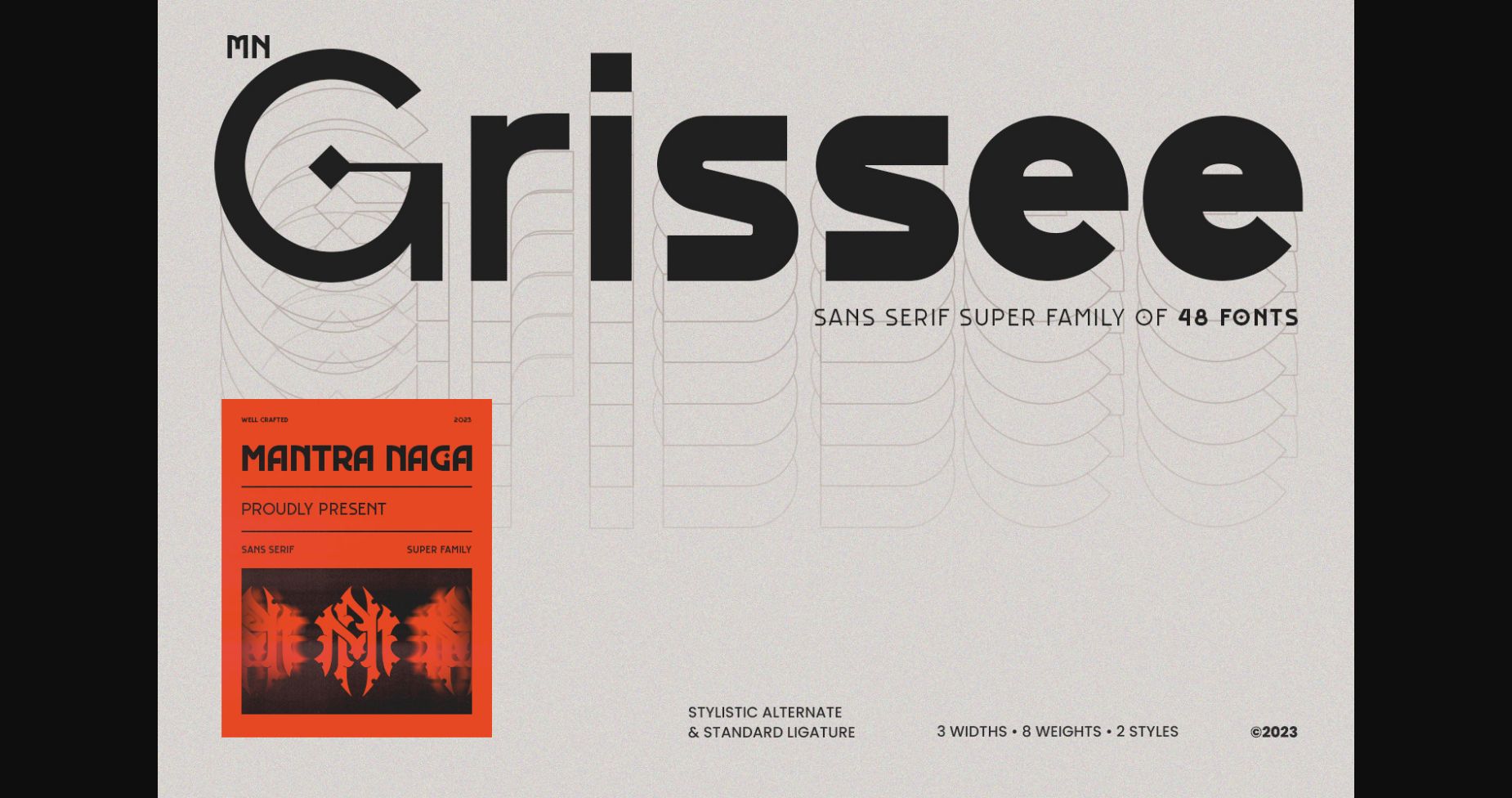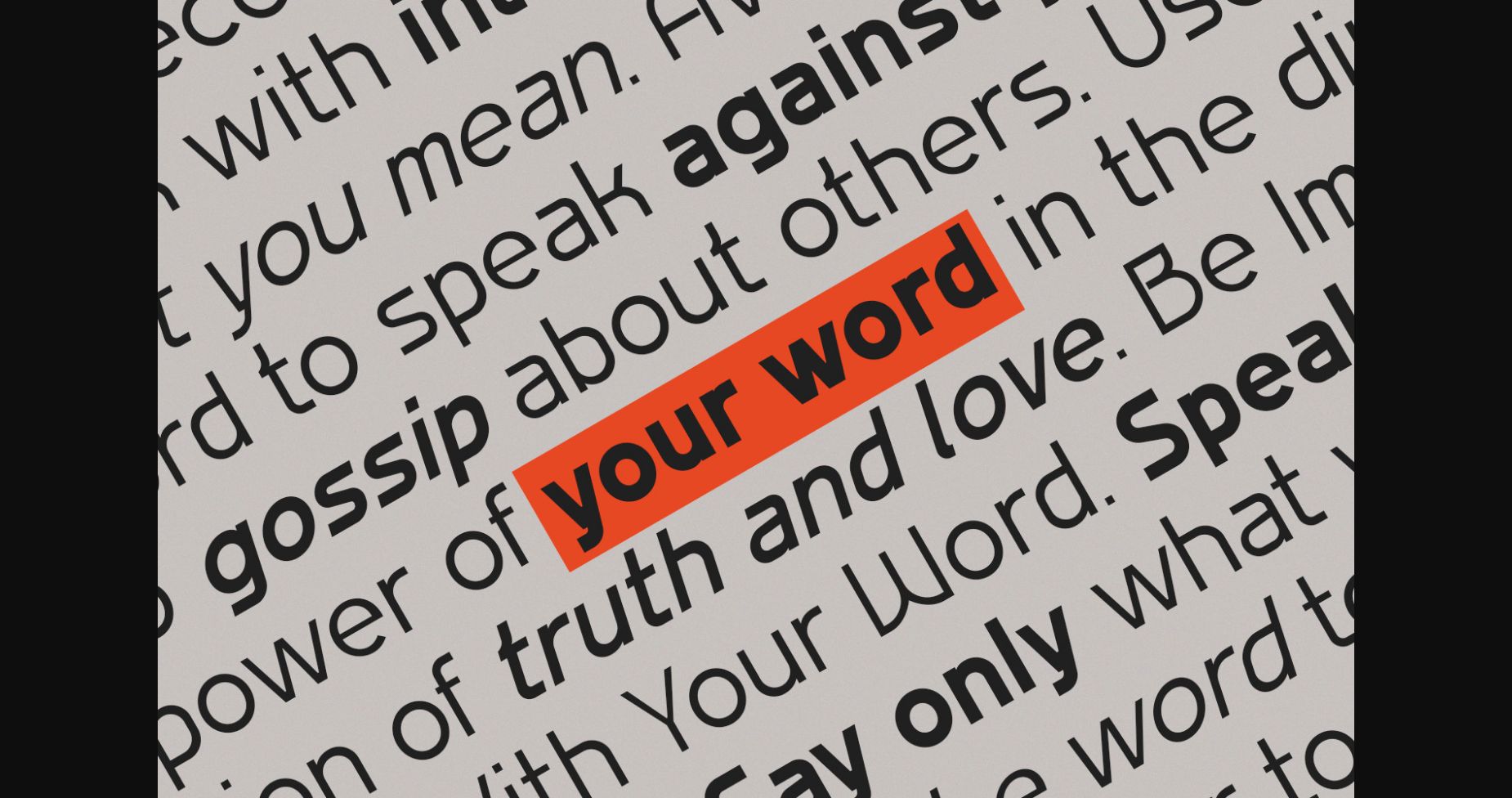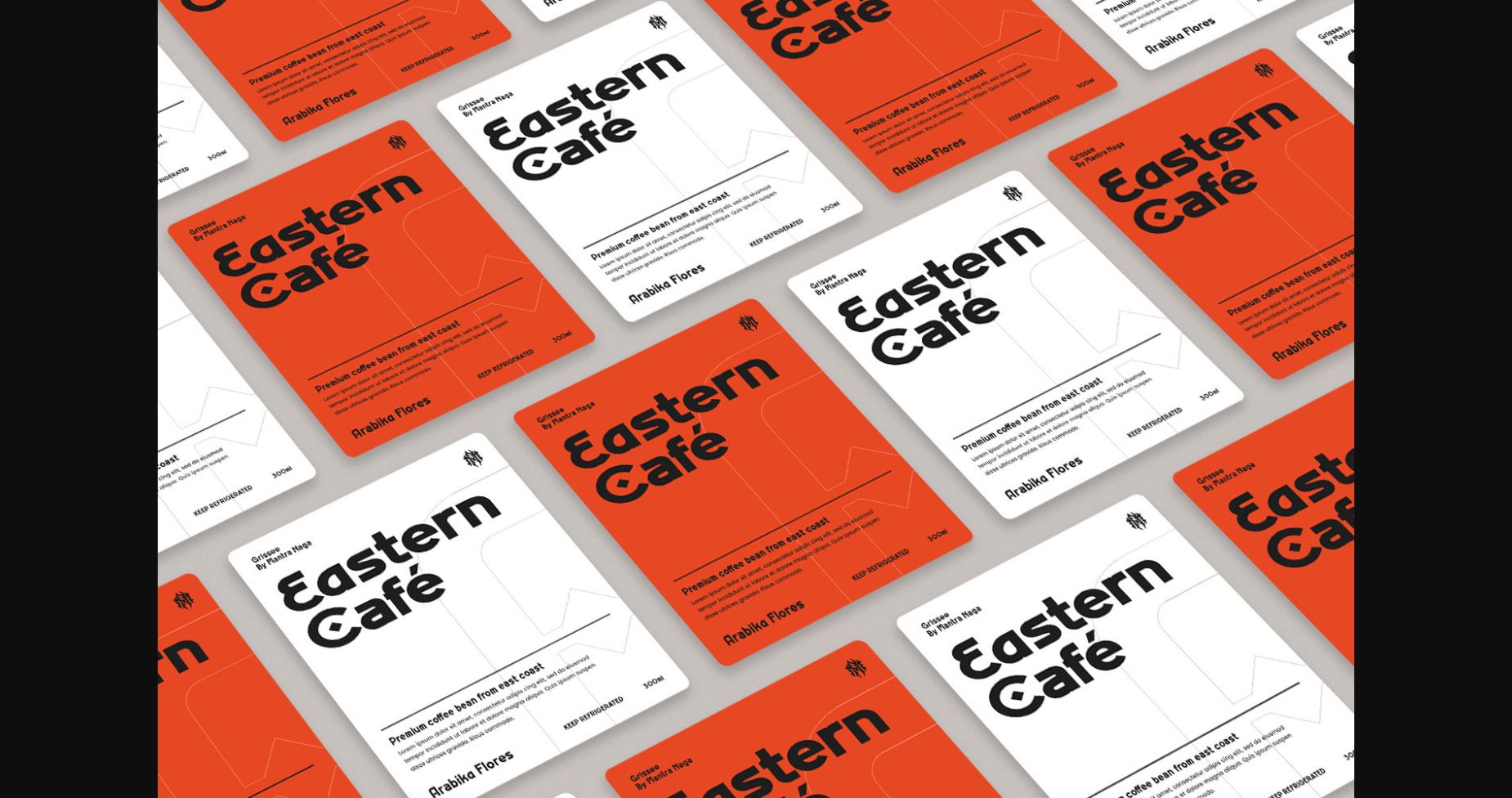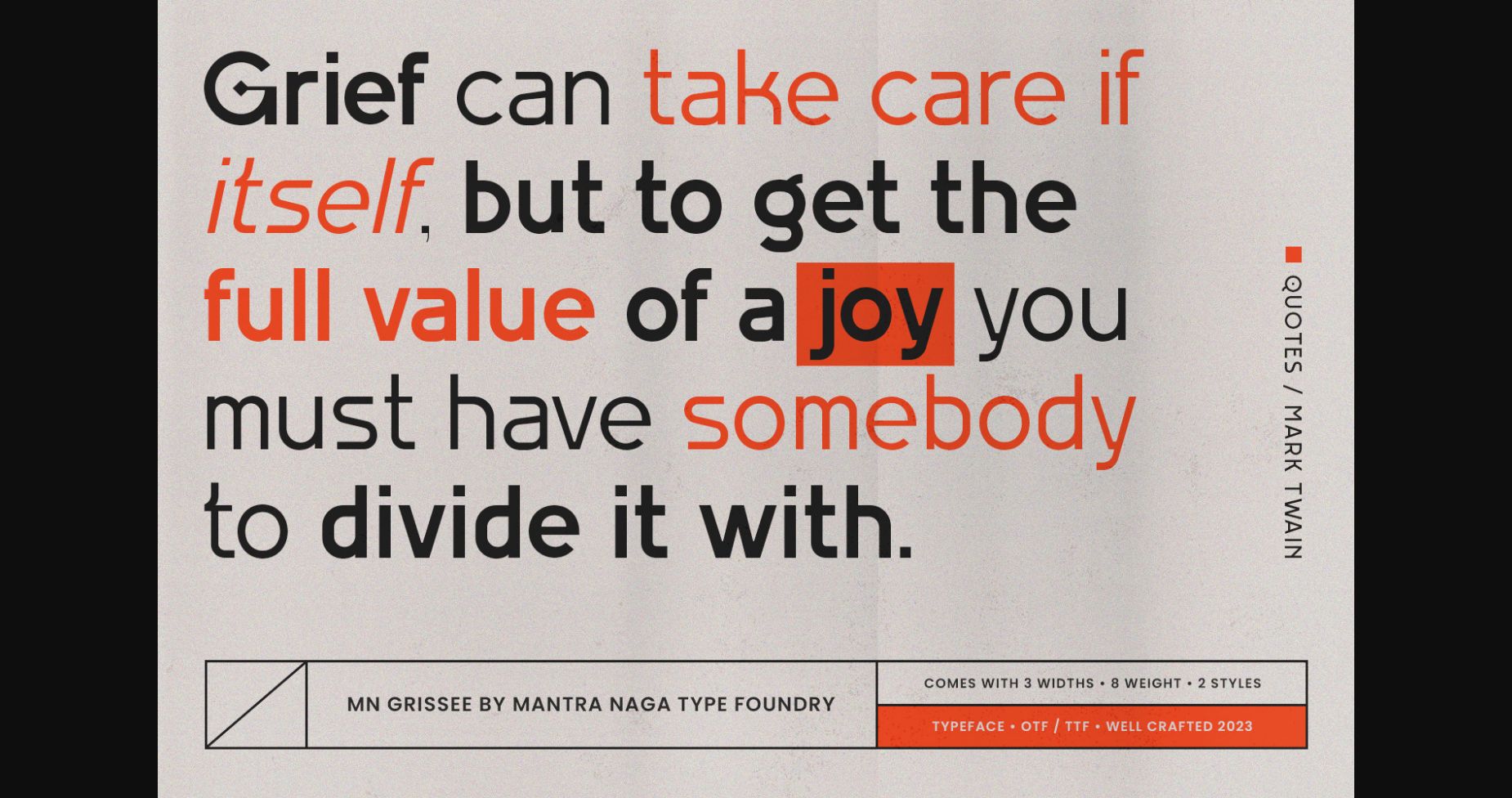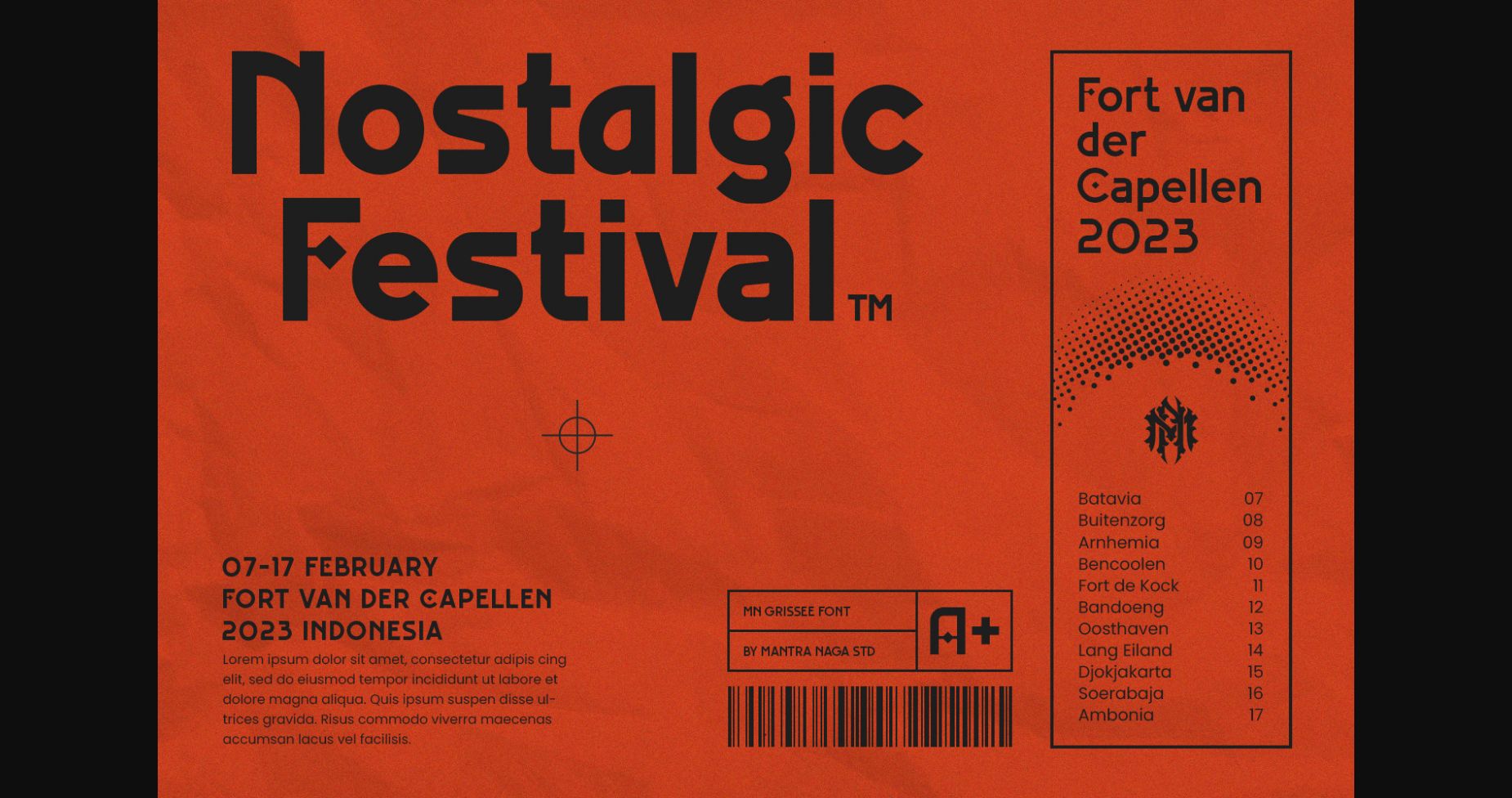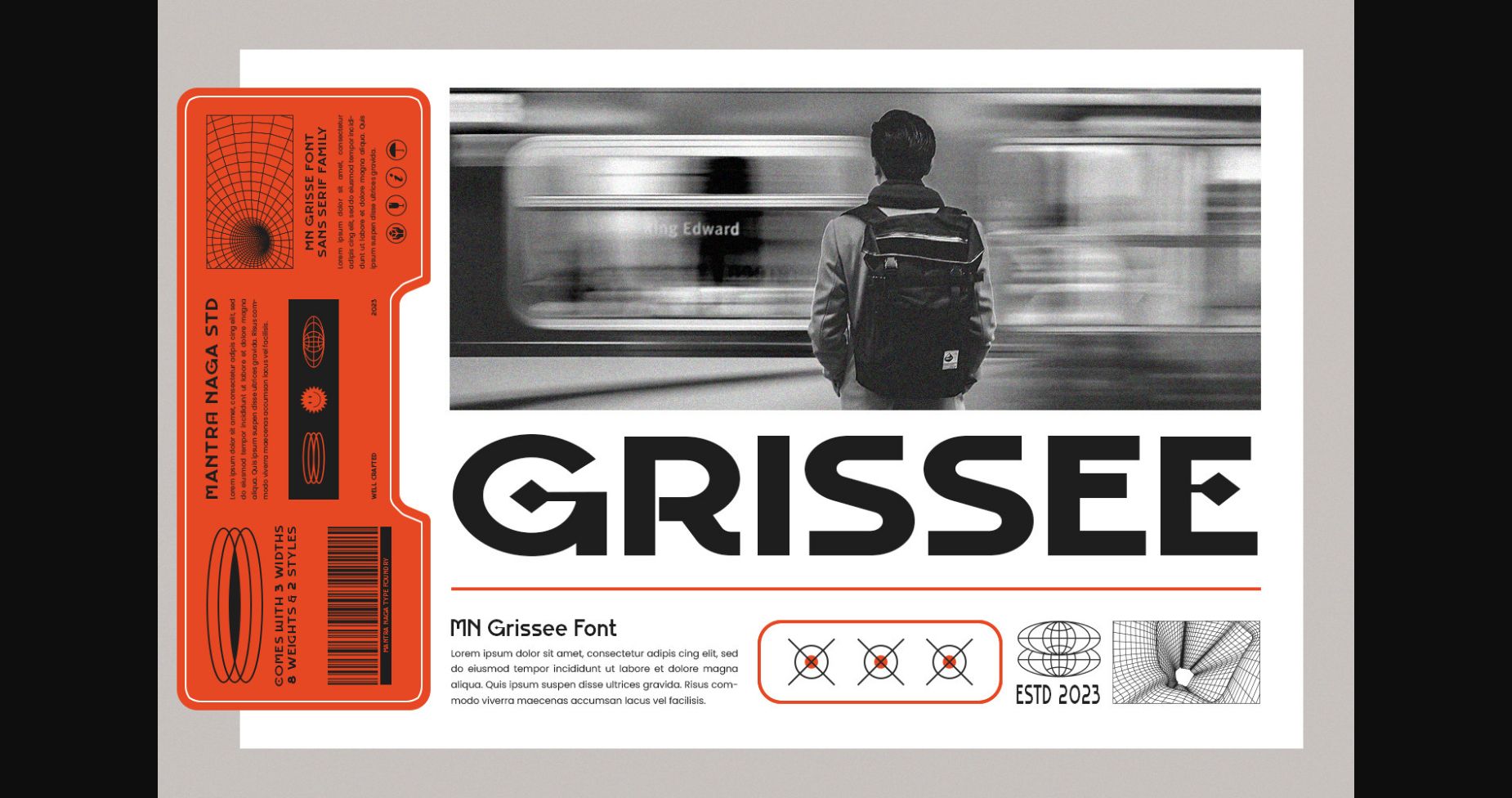
About Grissee Font
Grissee is a clean and modern sans serif font that combines simplicity with sophistication. Its clean lines and balanced proportions make it perfect for any minimalist design. The font has a timeless appeal and works well for both digital and print media. Grissee is a versatile font that can be used for a range of projects, from branding and advertising to editorial design and web design.